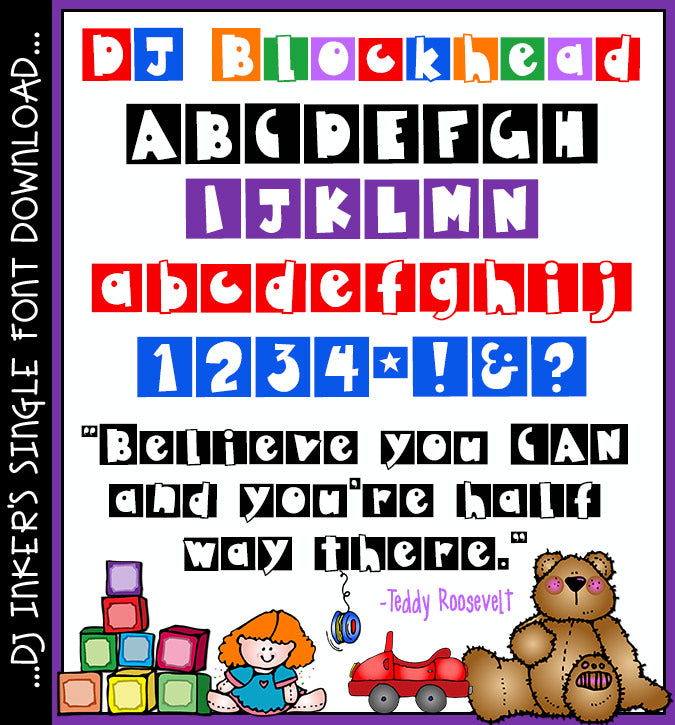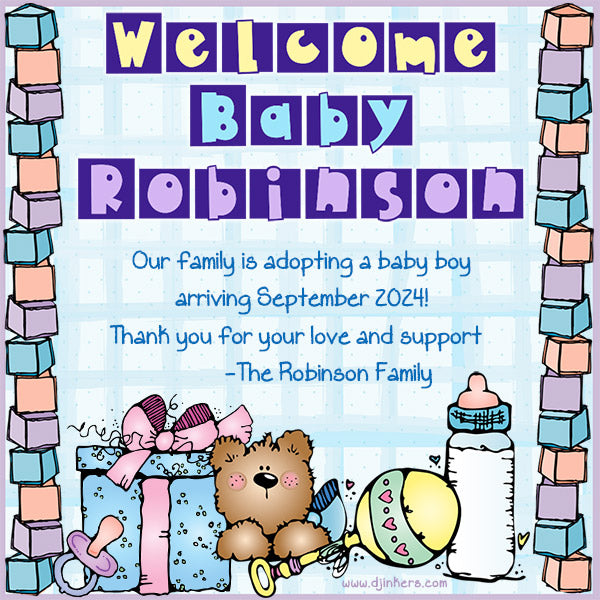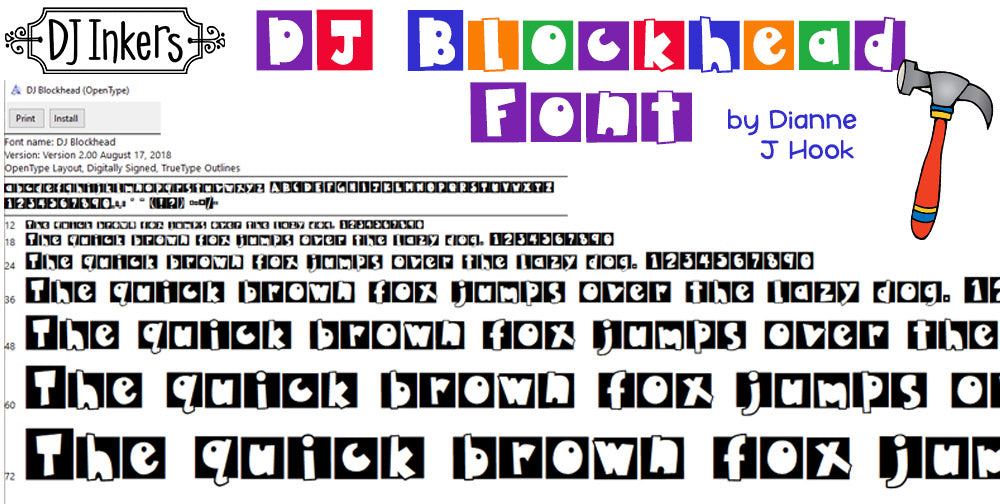
DJ Blockhead Font Download
Our playful 'DJ Blockhead' font will making typing FUN! Great for pairing
with kids, toys, posters & bold announcements. Looks best in larger
sizes and bright colors.